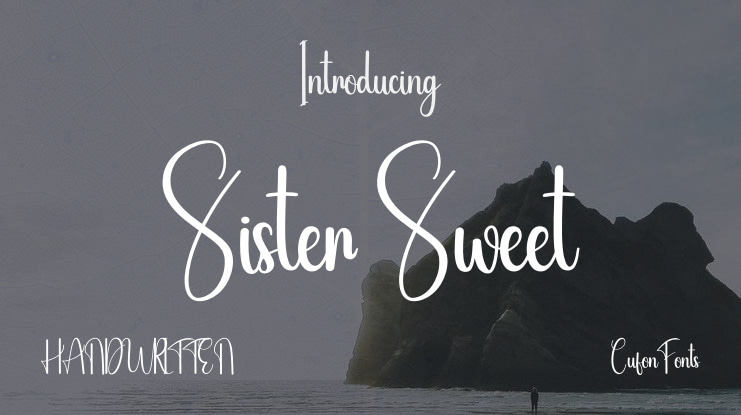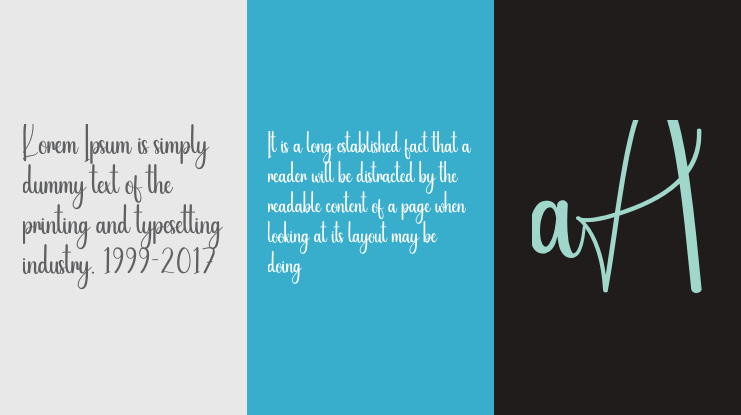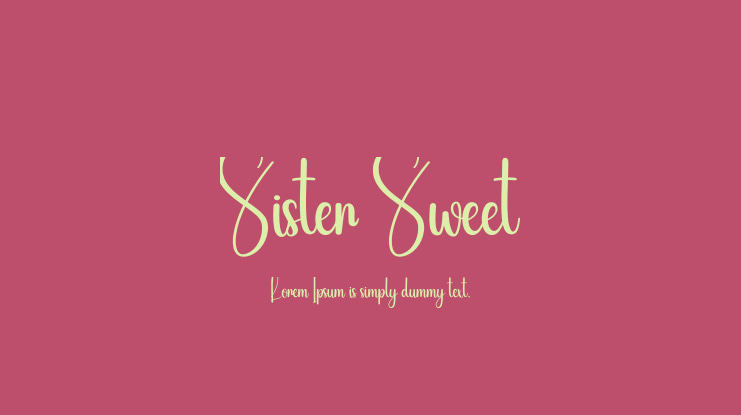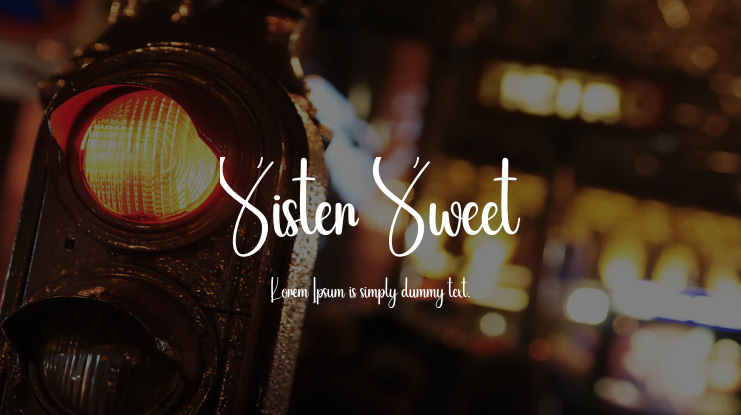
Sister Sweet Font
Our latest stylish fonts are ideal for various applications such as wall displays, wedding invitations, social media posts, logos, advertisements, product packaging, design projects, labels, photography, watermarks, invitations, stationery, and any project that requires elegant handwriting.